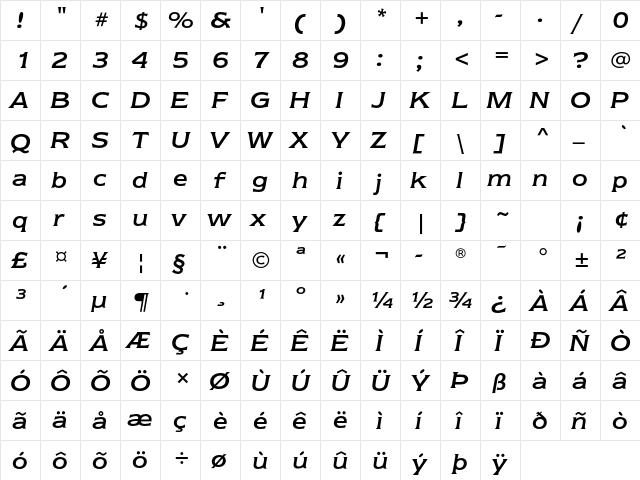
Newtext ITC Std Italic
| Designer | Ray Baker |
Design Context for Newtext ITC Std Typeface
Newtext ITC Std offers clean, dependable letterforms without strong stylistic allegiance, making it a practical choice for designers who need flexibility. Its italic angle brings a sense of urgency and motion to the letterforms.
Pro Tip: Use Newtext ITC Std for emphasis, pull quotes, and subheadings where its slanted energy can add rhythm to the layout.